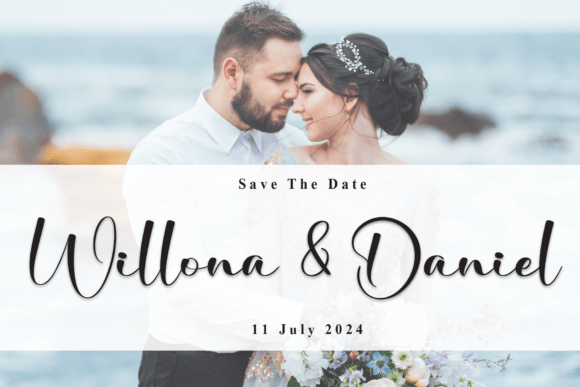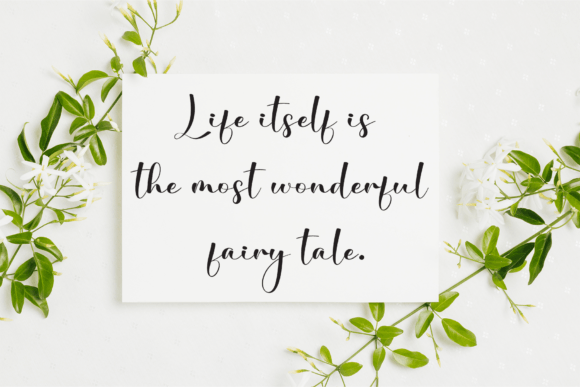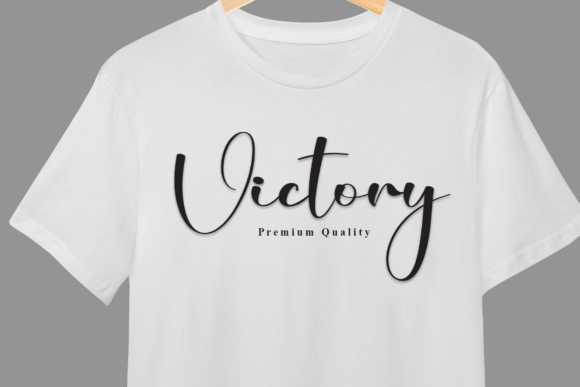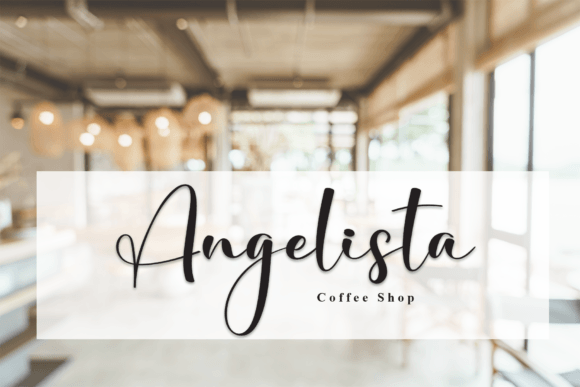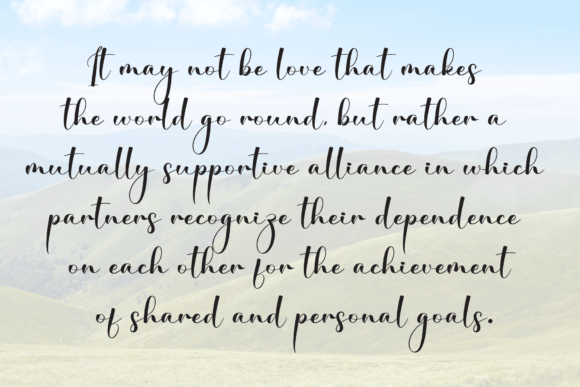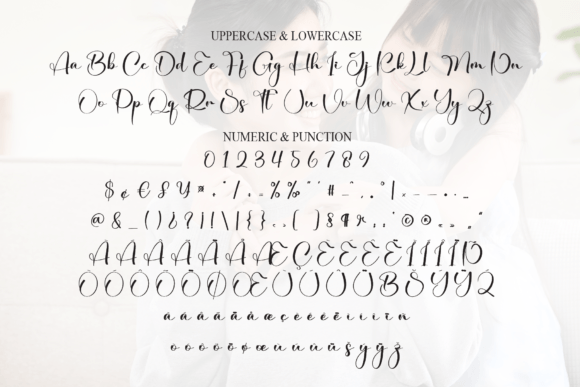
Introduction to Darling Mother Font Font
Fonts play a crucial role in design, and the Darling Mother Font font is a typeface that brings both character and versatility to any project. Whether you’re working on a branding project, a website, or a print design, the Darling Mother Font font offers a unique style that can elevate your work.
Darling Mother is a charming handwritten font with a warm, personal touch.
Its smooth, flowing letters make any text feel heartfelt and inviting .
Key Features of Darling Mother Font Font
Why Choose Darling Mother Font Font?
The Darling Mother Font font is more than just a typeface – it’s a design tool that helps you communicate your message with style and clarity. Its unique character set and versatile design make it suitable for a wide range of applications, from elegant invitations to bold headlines.
With its carefully crafted letterforms and balanced proportions, the Darling Mother Font font ensures readability and visual appeal across all mediums.
What makes Darling Mother Font font special?
The Darling Mother Font font stands out with its unique design, exceptional readability, and versatility across various design applications.